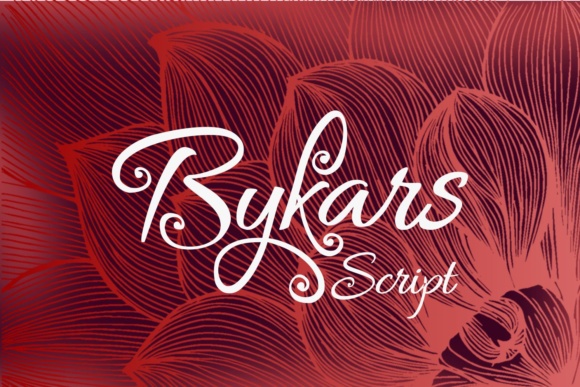
The Sweet Spot: Discovering Bykars Font
I still remember the design project that led me to Bykars Font. I was working on a romantic wedding invitation suite, and I was struggling to find the perfect font. The client wanted something sweet, playful, and whimsical, but not too over-the-top. After hours of scouring font websites and trying out different options, I stumbled upon Bykars Font. It was love at first sight! 💕
This gorgeous font has a saccharin look that’s perfect for romantic creative projects. Its curly, handwritten style adds a touch of warmth and personality to any design. In this article, I’ll share my honest review of Bykars Font, provide a practical guide on how to use it, and explore similar fonts and alternatives.
- Unique and playful curly design that’s perfect for romantic projects 🎉
- Sweet and whimsical feel that’s sure to delight 💖
- Works well in print projects, such as wedding invitations, greeting cards, and more 📨
- Easily pairs with other fonts to create a beautiful contrast 📚
- May not be suitable for very formal or professional projects due to its playful nature ⚠️
- Some users may find the font a bit too sweet or over-the-top for their taste 😅
The Story Behind Bykars Font
Bykars Font was designed with love and care by a talented font designer who’s passionate about creating unique and beautiful fonts. The designer’s inspiration for Bykars Font came from a mix of traditional and modern typography, with a focus on creating a sweet and whimsical feel.
| Font Name | Bykars Font |
| Author | Digital Typeface Studio |
Q: What type of projects is Bykars Font best suited for?
A: Bykars Font is perfect for romantic creative projects, such as wedding invitations, greeting cards, and more.
Q: Can I use Bykars Font with other fonts?
A: Absolutely! Bykars Font pairs well with other fonts to create a beautiful contrast. Experiment with different font combinations to find the perfect look.